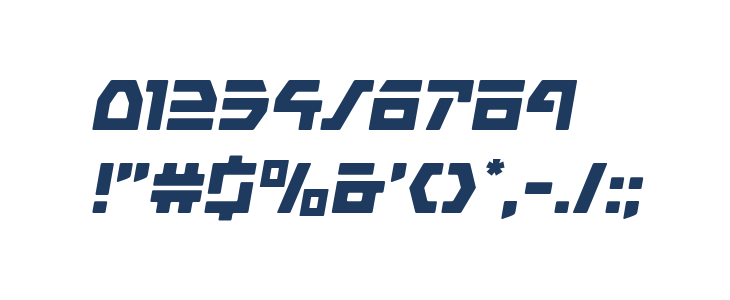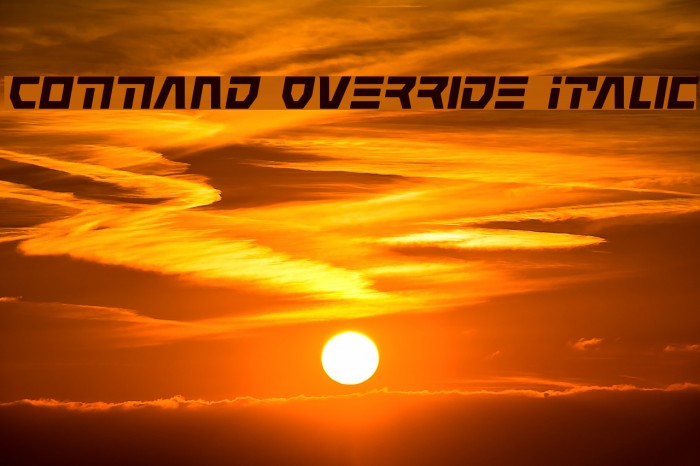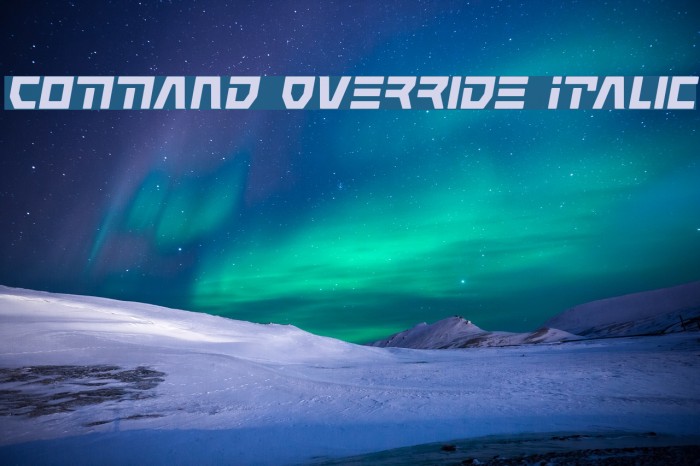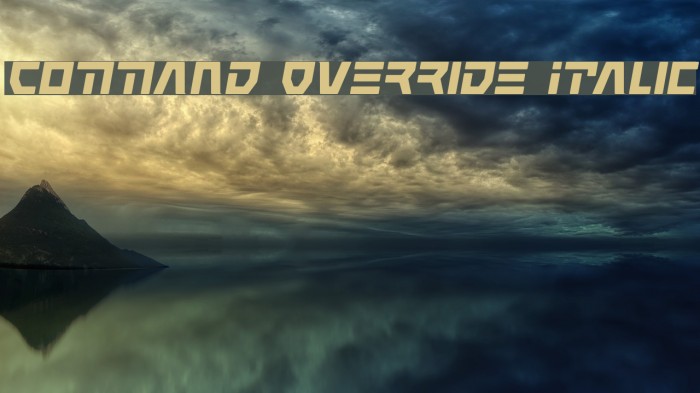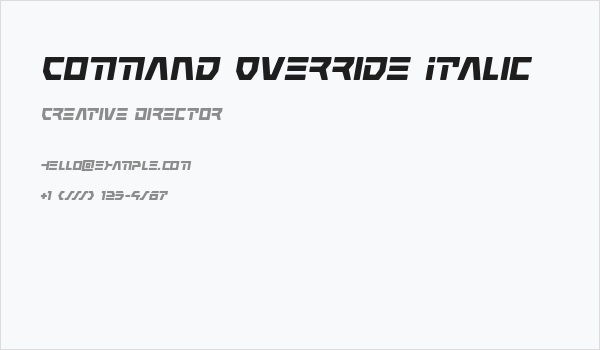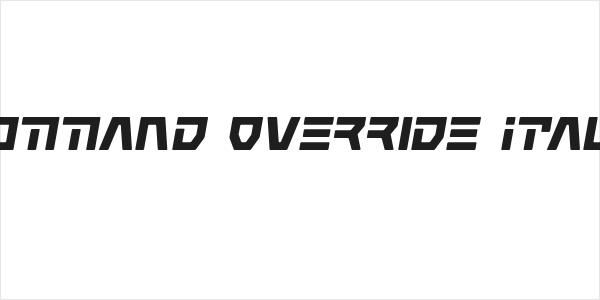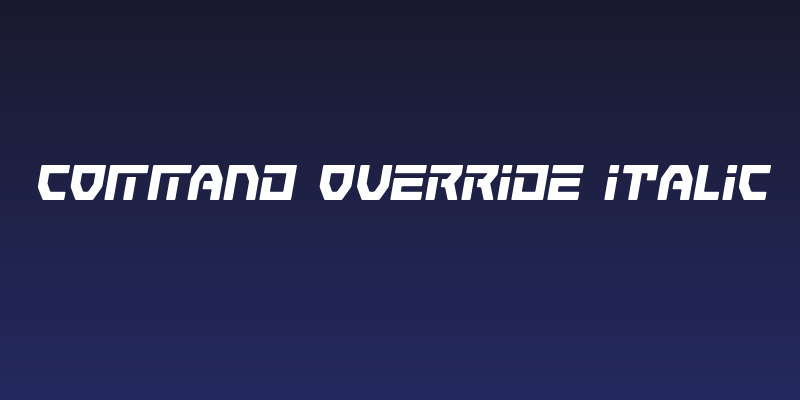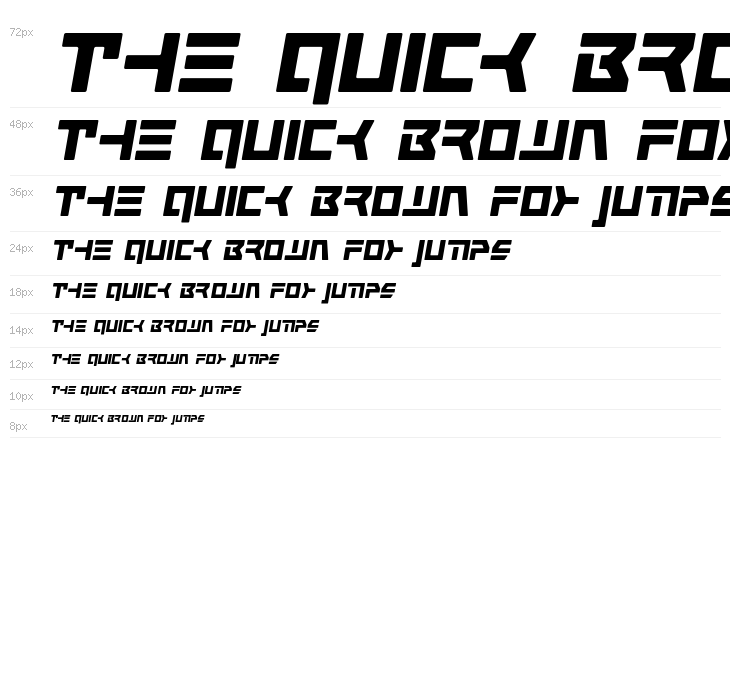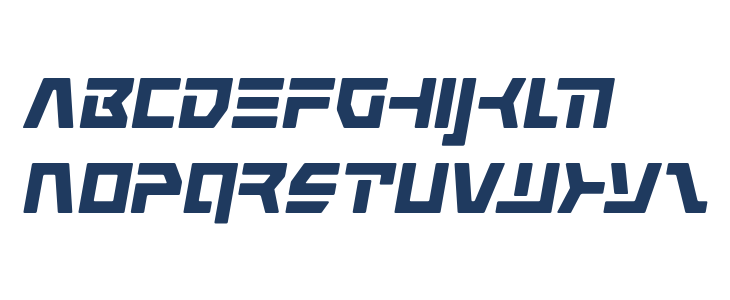
Command Override Italic Font
Command Override Italic Description
This font features a bold, futuristic design with sharp angles and a distinct italic slant. The characters are constructed with thick, uniform strokes, giving them a strong presence. The uppercase and lowercase letters maintain a consistent style, with the lowercase slightly smaller but equally bold. Numbers and special characters are designed to match the angular, modern aesthetic, making them stand out. The overall appearance is dynamic and forward-looking, ideal for projects that require a sense of speed or technology.
| Proposed Projects | Ideal for technology branding, sci-fi movie posters, video game titles, and futuristic product packaging. |